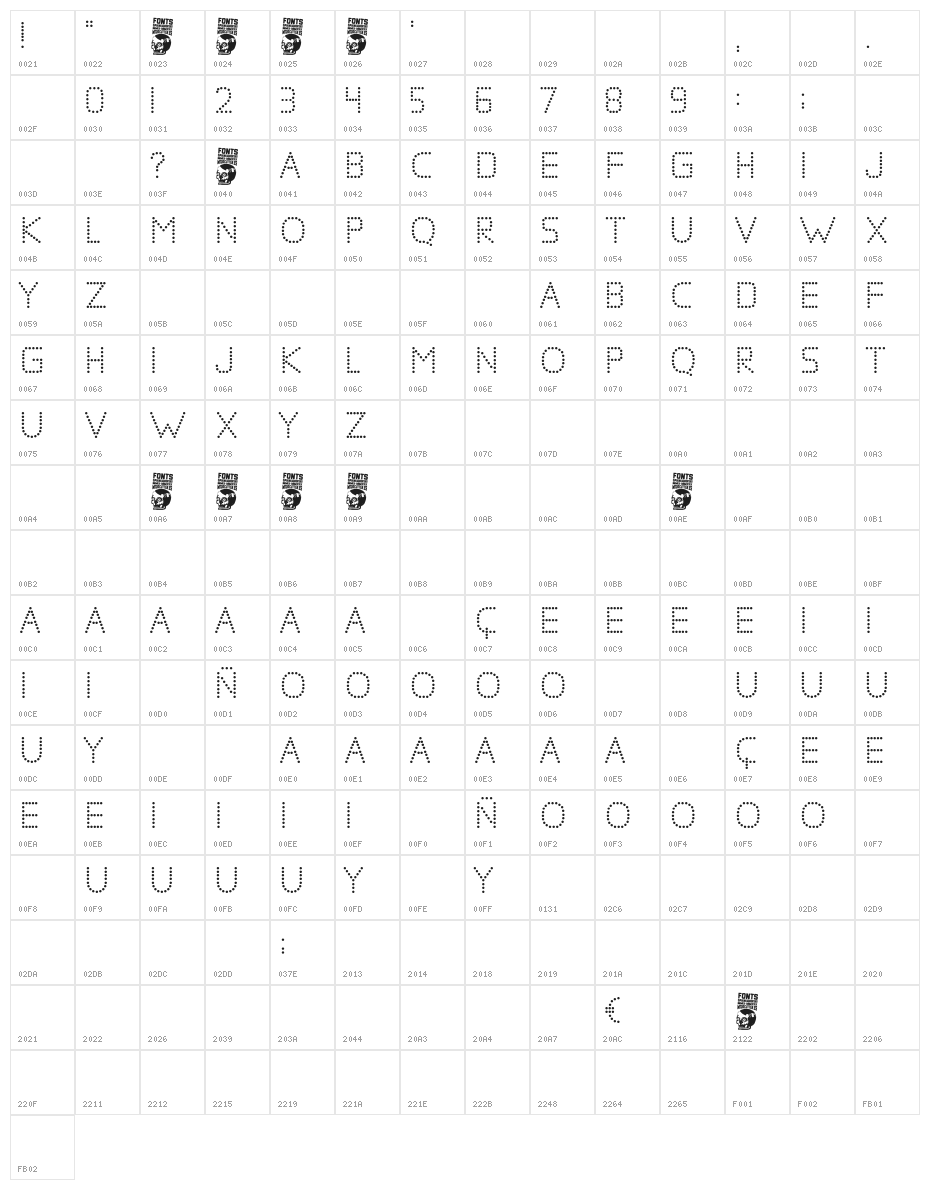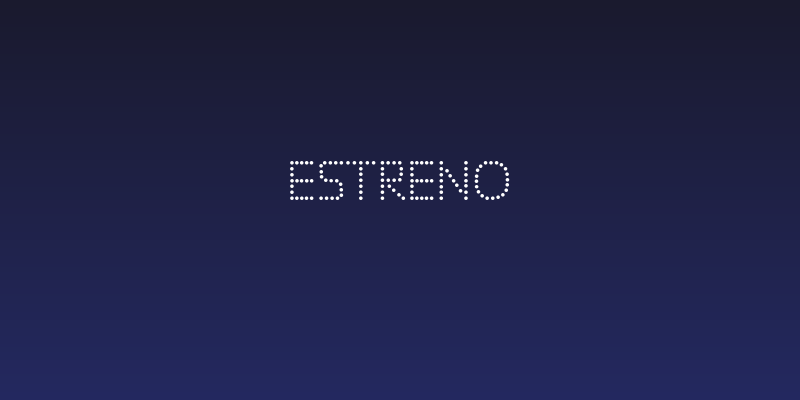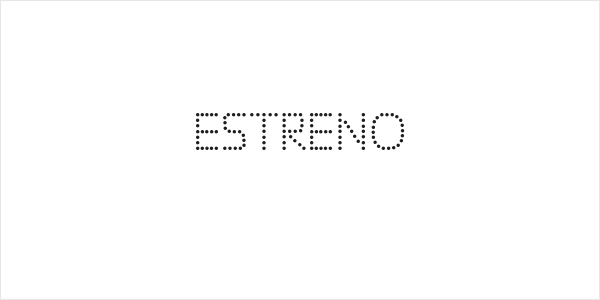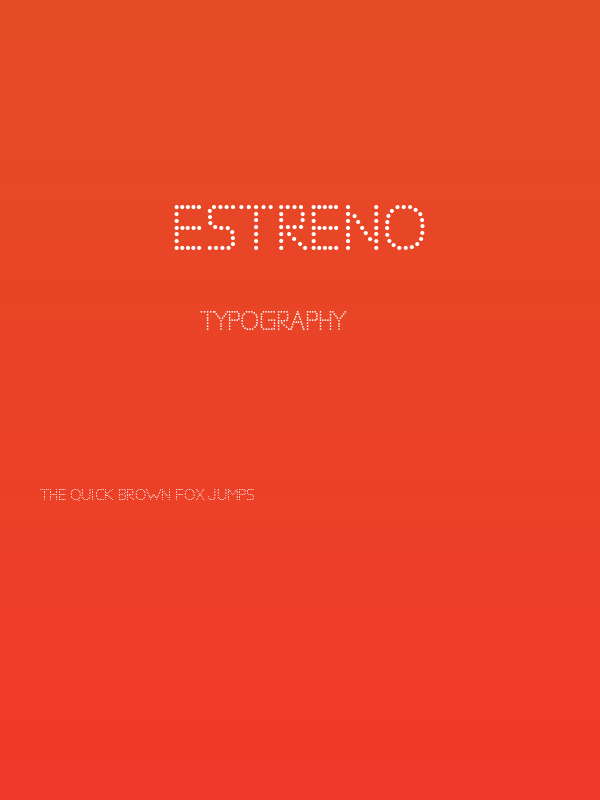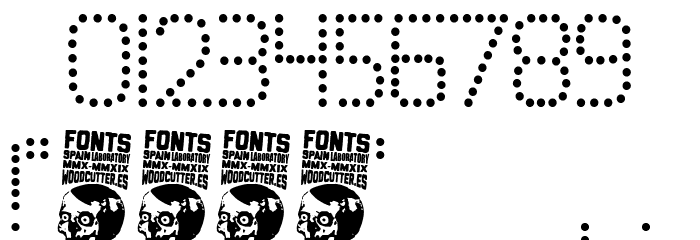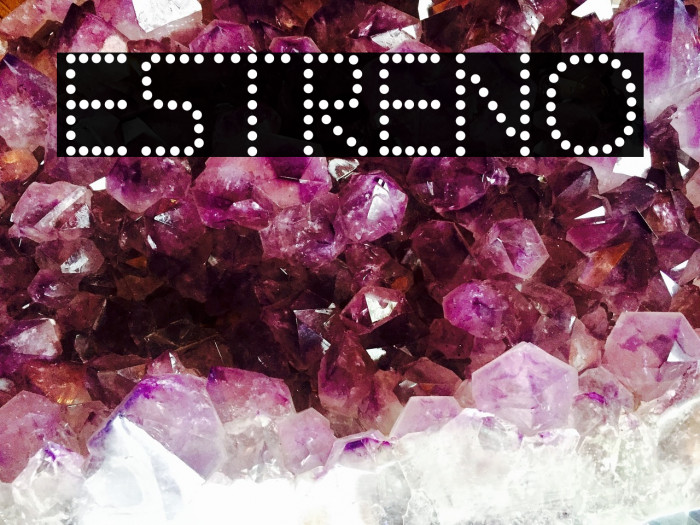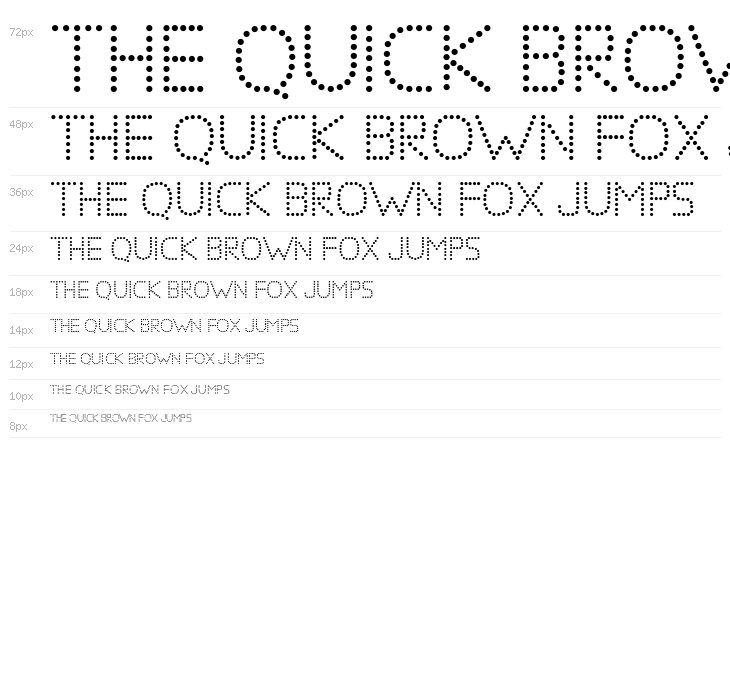
Estreno Font
Estreno Description
This font features a unique dotted design, where each character is composed of evenly spaced circular dots. The geometric arrangement gives it a modern and digital feel, reminiscent of LED displays or dot matrix printers. The uniformity in dot size and spacing ensures readability while maintaining a distinct visual style. The uppercase letters, numbers, and special characters are all crafted with precision, making it suitable for creative and tech-oriented projects.
| Use Case | Headlines, Logos, Digital displays |
| Proposed Projects | Ideal for digital displays, tech-themed posters, modern art projects, and creative branding. |